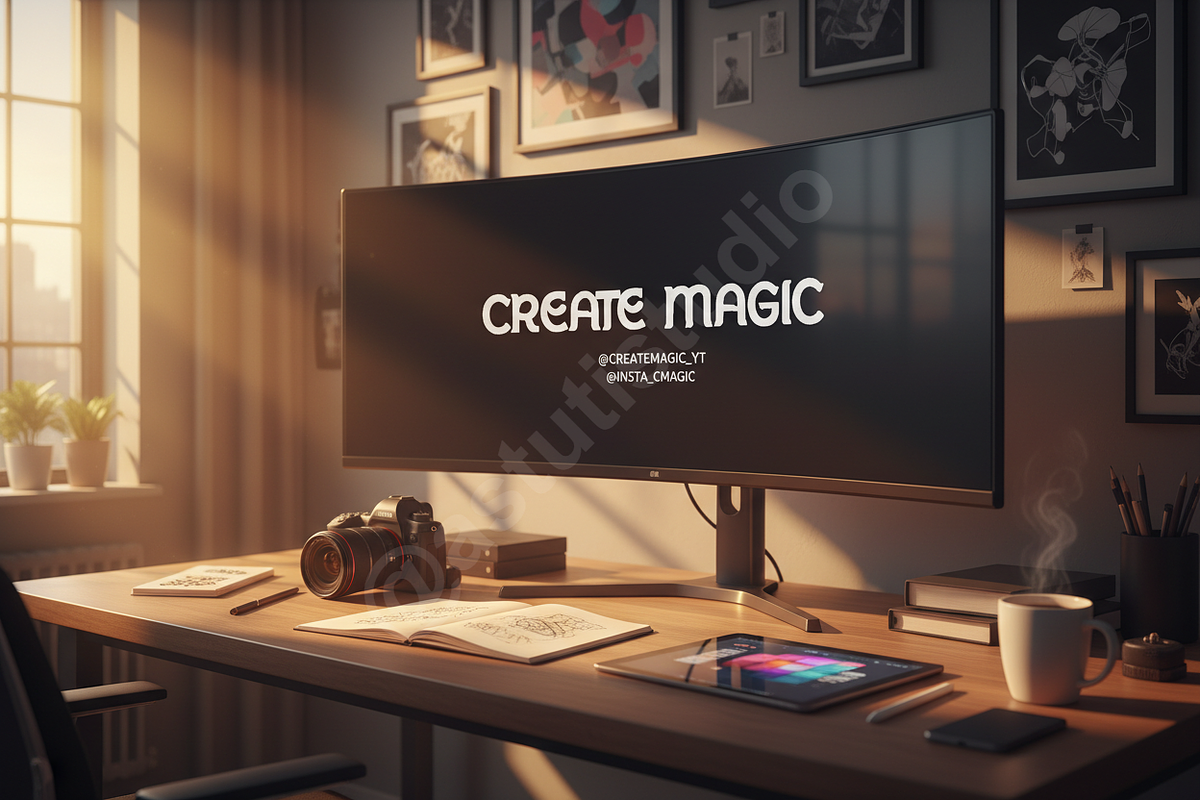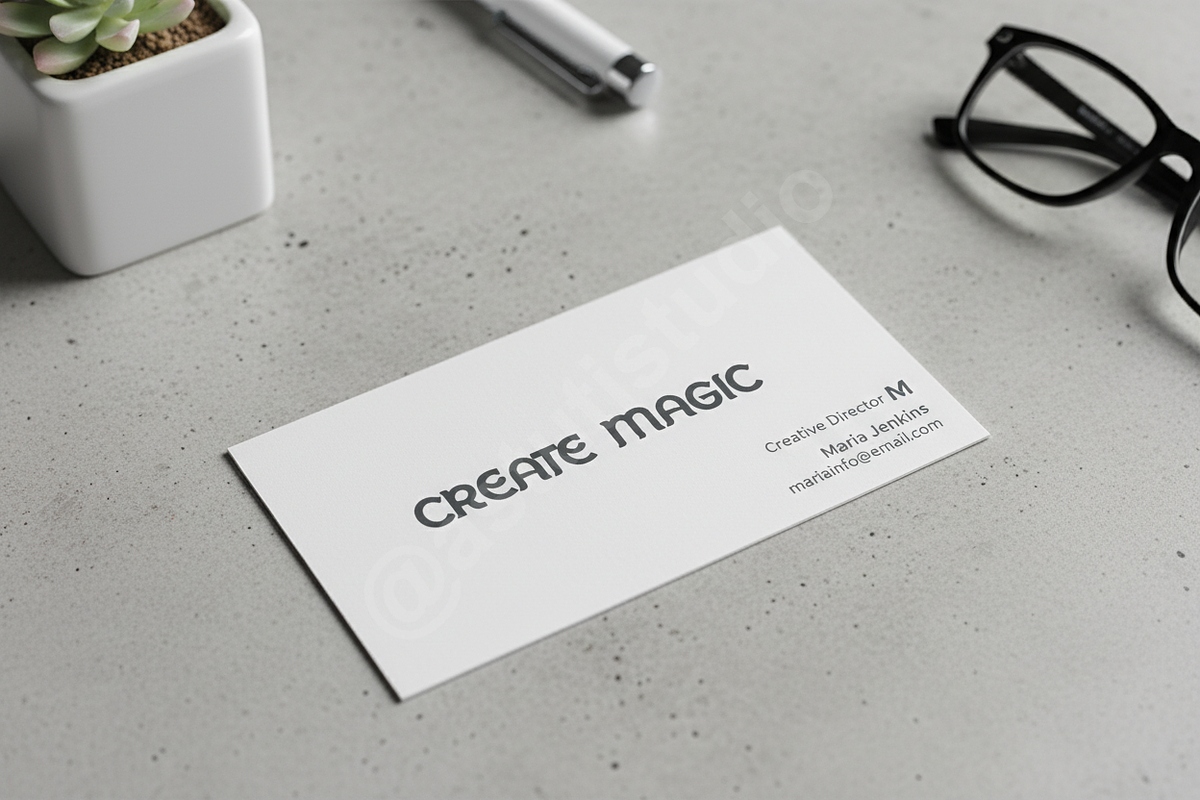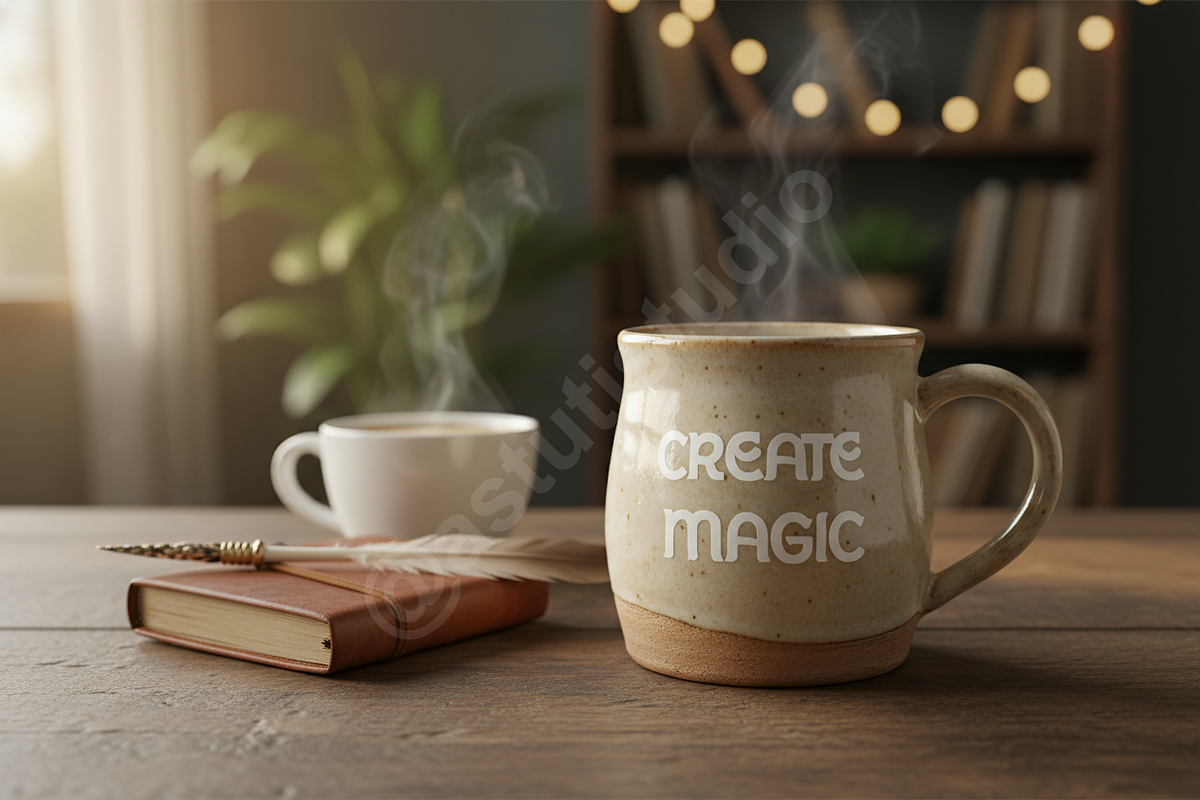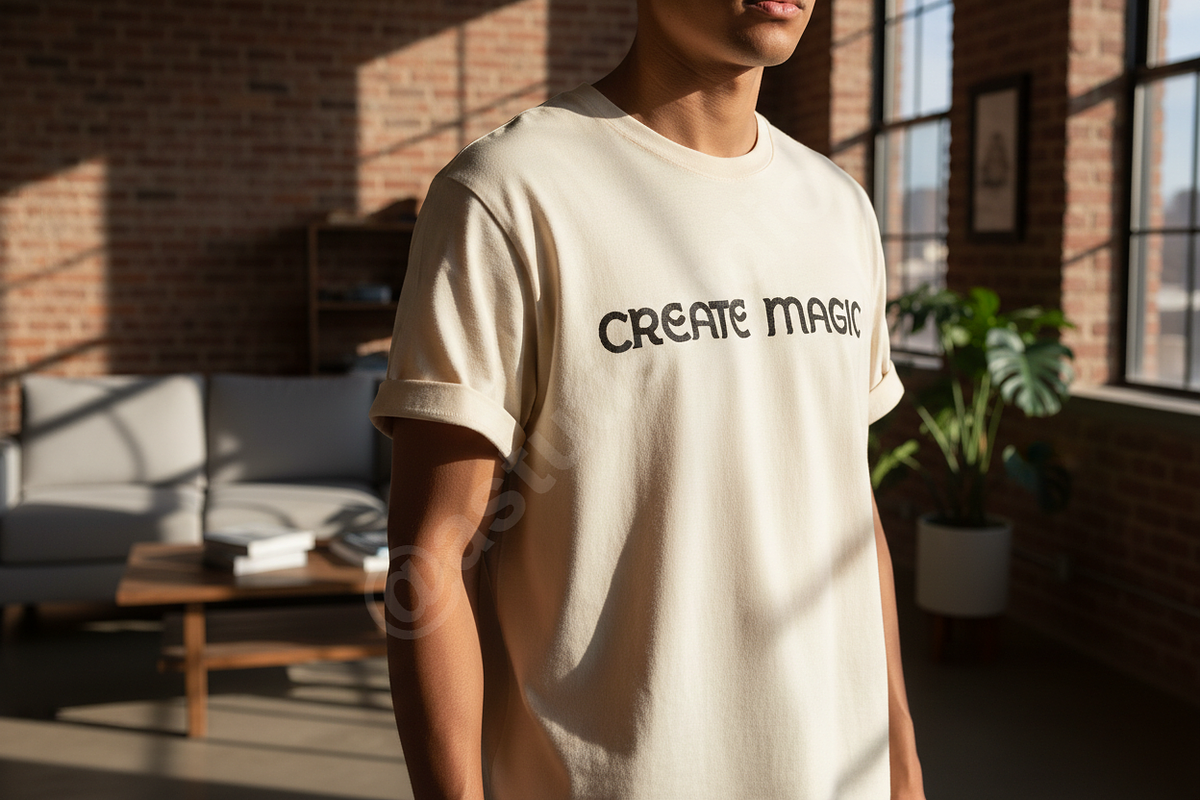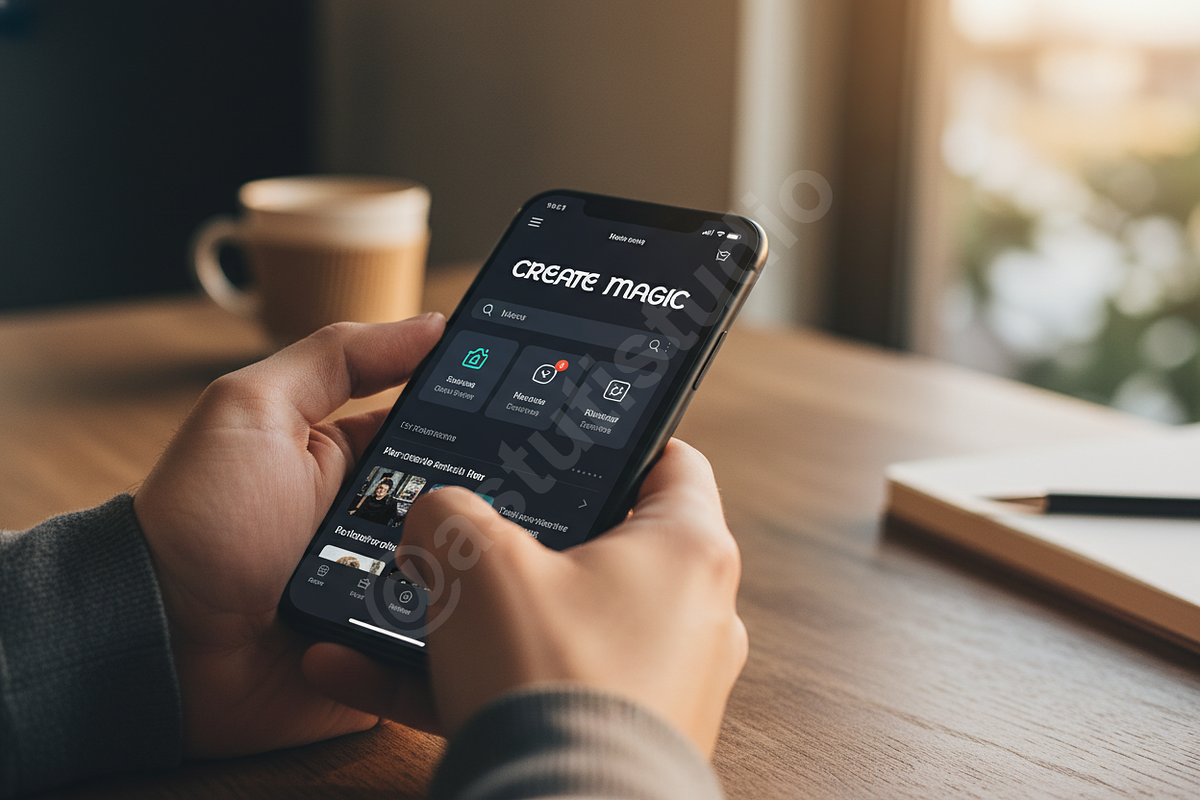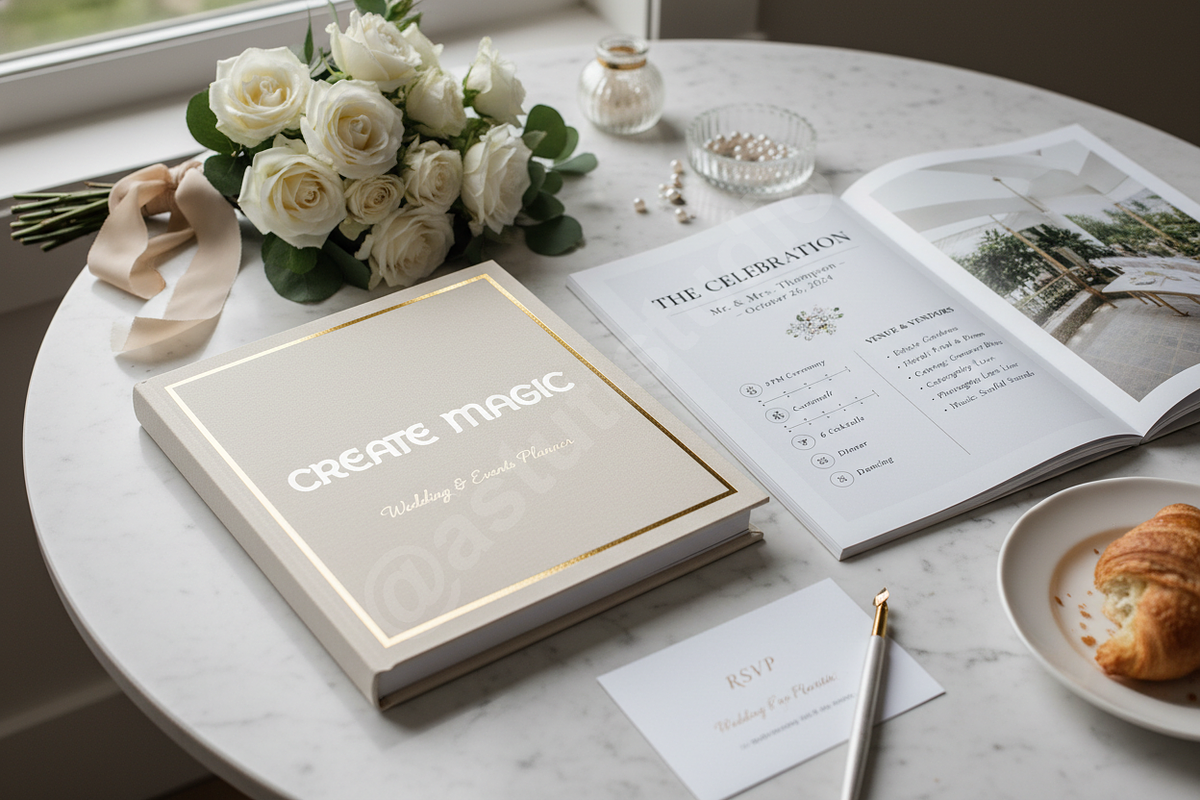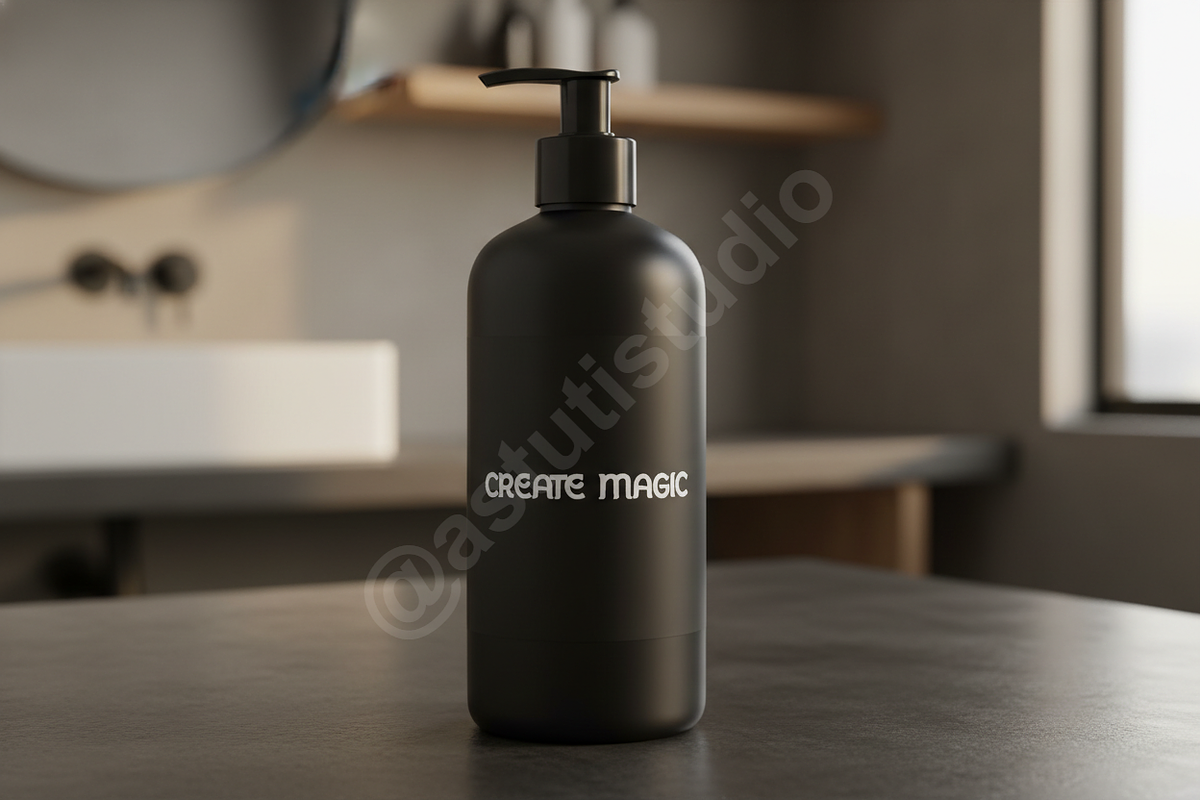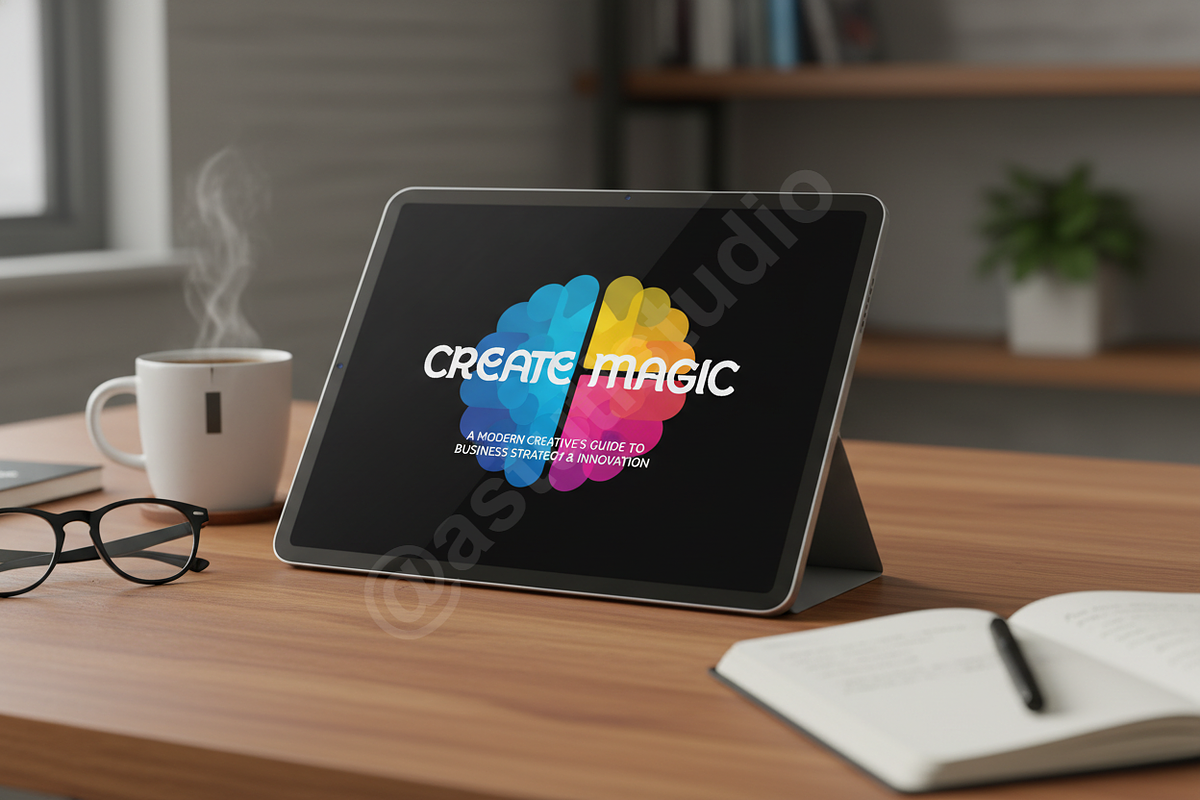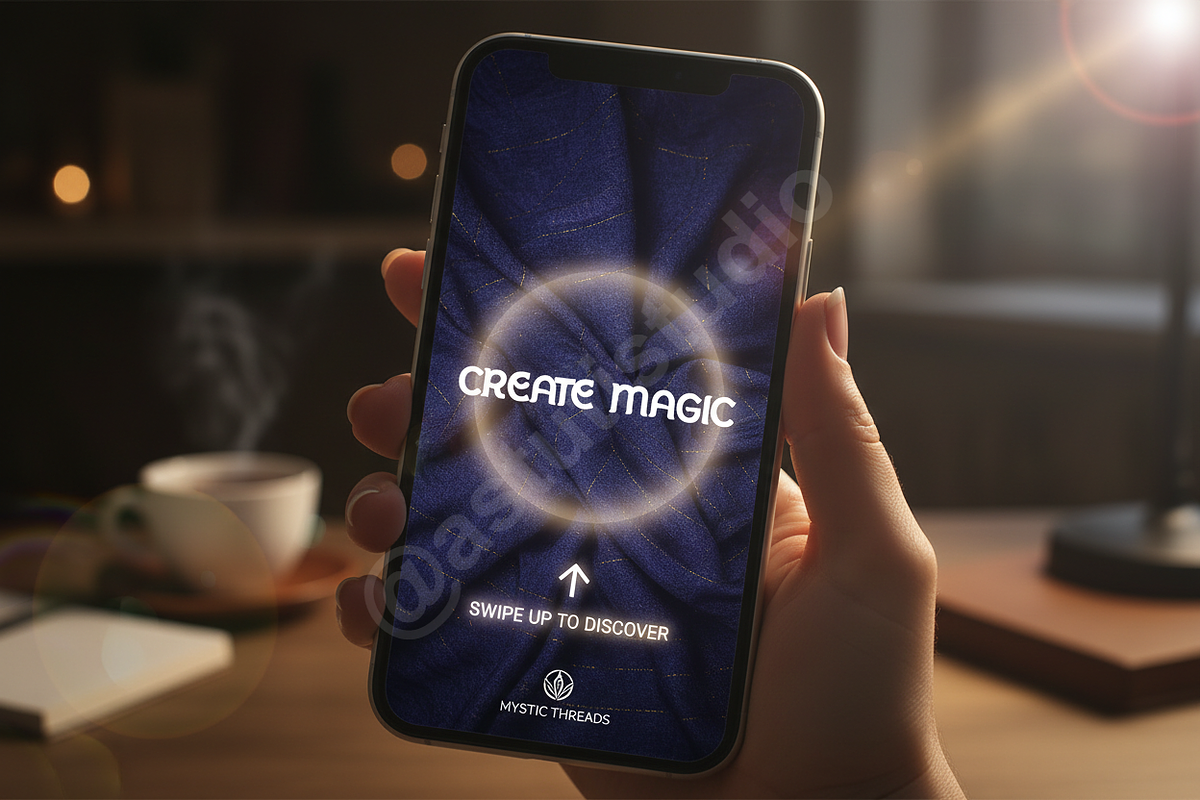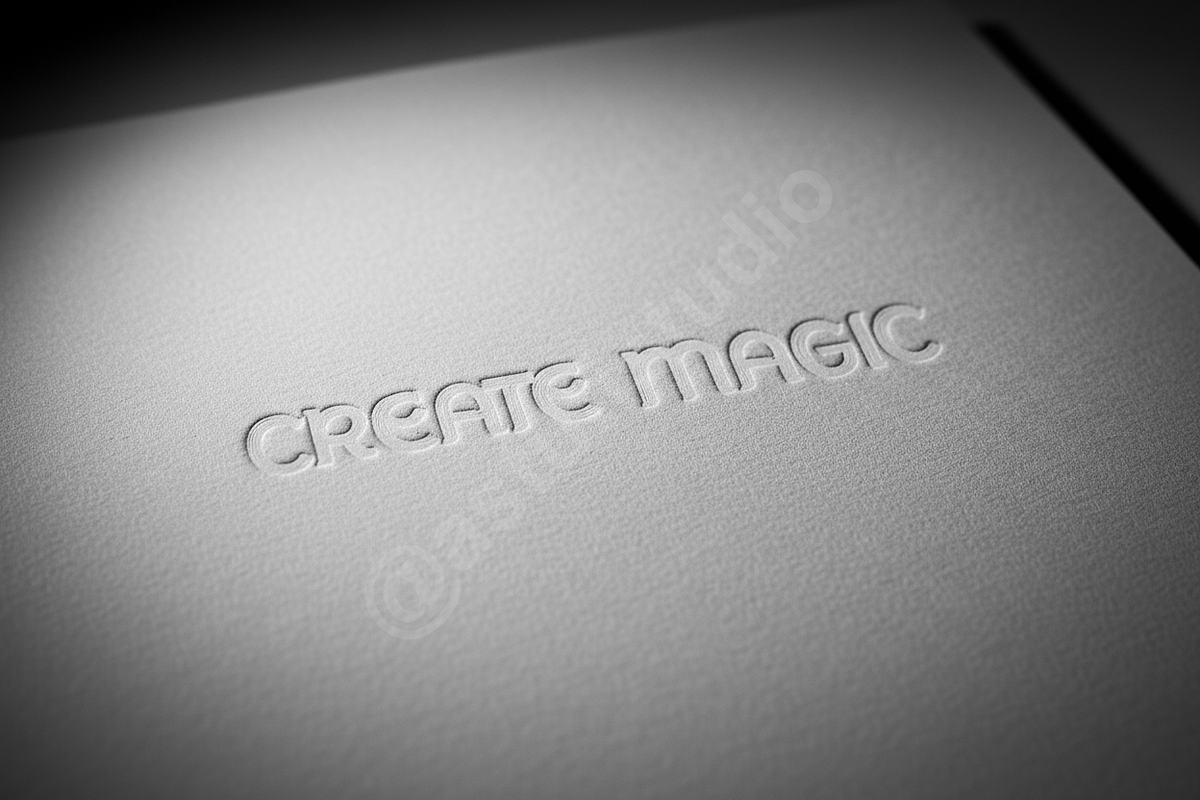
FUZEFU: High-Contrast Modern Display Serif
Introduction Fuzefu is a meticulously crafted modern display serif designed for sophisticated visual identities. Its striking high contrast and elegant, elongated serifs ensure maximum impact in luxury branding, high-fashion editorials, and premium digital layouts. Fuzefu embodies contemporary elegance, making it the definitive choice for designers seeking to elevate their projects above the ordinary. It seamlessly blends classic typographic structure with cutting-edge modern aesthetics, perfect for magazine mastheads and premium packaging.
- Six distinct weights (Thin, Light, Regular, Medium, Semibold, Bold) offering maximum versatility for hierarchy and design variation.
- Extensive OpenType features including discretionary ligatures, stylistic alternates, and standard fractions for professional polish.
- Full multilingual support (over 100 languages) including Western, Central, and South Eastern European characters.
- Perfectly optimized kerning for flawless readability across print and digital platforms.
- Ideal for high-end packaging, magazine headlines, product titles, and impactful social media graphics.